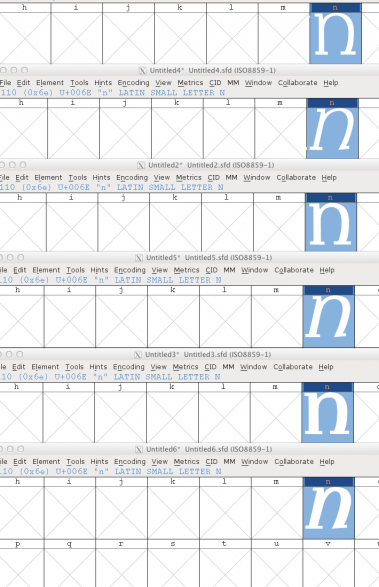
@meek: Look at Groszak's avatar,
It looks exactly
like the staff one.
It does. But since Groszak was 8 at the time and may or may not have understood the concept.
What do you guys think the next FS competition will be?
I think it probably is one of these:
PixelComp (pixels...duhh)
TextComp (textface)
SansComp (sans serif)
SlabComp (slab serif)
SerifComp (serif)
BoldComp or FatComp (bold or fat)
ThinComp or HairlineComp (light or hairline)
ChaosComp (crazy, chaotic fonts)
GridComp (looks like a grid)
ExtendedComp (fonts with a lot of characters(minidonut would win))
FoodComp (fonts or dingbats that look like food)
Also, do you think I should continue with these drawings I made of a serif font? And if so, should I use FS, Glyphs Mini, or FontForge?
Yes, continue.(erase the upper right ascender serif on the k and h.-suggestion)
Ok. But should I use Glyphs Mini, FontForge, or FS? Which would be the easiest and most painless?
I don't know, but do not use Fs.
Worked on this during school.
(Top: Цветочный, bottom: Floralis)
I've been advised that my B is a little odd in my new typeface ''Vines'', so here are 3 variations for your scrutiny and comment:
A font I'm starting:
Turnin
Readable but quirky, Turnin is a font for text that is fun or exciting. Also usable for any size, Turnin cones in three weights with true italics.
What kind of software do you use?
fontforge
lost it. restarting.
...Was thinking about cleartype... and it's hinting. It's bad. I mean it's clear but the thing is that it transforms fonts to almost-pixel fonts. And apple's Quartz is slightly blurry. I made the "perfect hinting" between the two. It's a mockup of Constantia, by the way.
Love Floralis, MD. You're not planning to FS it, are you? :P
W5: I know it's a little unconventional, but what I've done before is write out the font in SVG and then just export it as a font file. A lot of writing though.
Cohn: I like the first one. (You might want to refine the curves a little more and connect the serifs to the vertical stroke IMHO)
with the right tools... *deranged laughter*
(note that GlyphWiki is meant for things like this)
@umbreon126 My japanese isn't good enough :)
Apple is favoring Roboto over Myriad on the iWatch.
ArchitectComp? Elaborate, elegant, building inspired fonts/letters.
I want someone to come up with full lowercase in 30 min. Yeah, it most likely will be tasteless, but who cares?
Mutilating Helvetica with Helvetica and Helvetica itself.
Tl;dr alert.
Guys. Hey, you. I'm talking to you (all of you).
I am coming back, after a long and unstable— uh… "break"?
I don't know why I have been inactive for so long (cough; homework, DS/GCN/Wii emulators, MK8… yeah), but I am coming back.
And, to celebrate my return (why am I making it so big anyway?), I have started a new font (I'm using waaay too much parentheses) which is NOT a pixel font (applause)—and I even started with Cyrillic instead of Latin.
And I encountered an amusing glitch bug thingy.
Thanks for spending 5 minutes reading this, there's an image showing the bug below, you can now continue working on your font again, or go read other comments if you were doing that.
Hey, welcome back. I guess MK stands for Mario Kart, not for Mortal Kombat. I look forward to see your Cyrillic font.
Yeah, I like how typography and gaming fill up each other's missing thing; typography has black-and-white details, while Mario Kart (and most other Mario games, but I don't like the time limits in platformers) is abundant in colors, nostalgia and great music (in contrast to those generic brownish FPSes you see everywhere else, where they only care about looks and not how it is and feels).
Then books of the famous and originals Fontstructions can be maked or printed